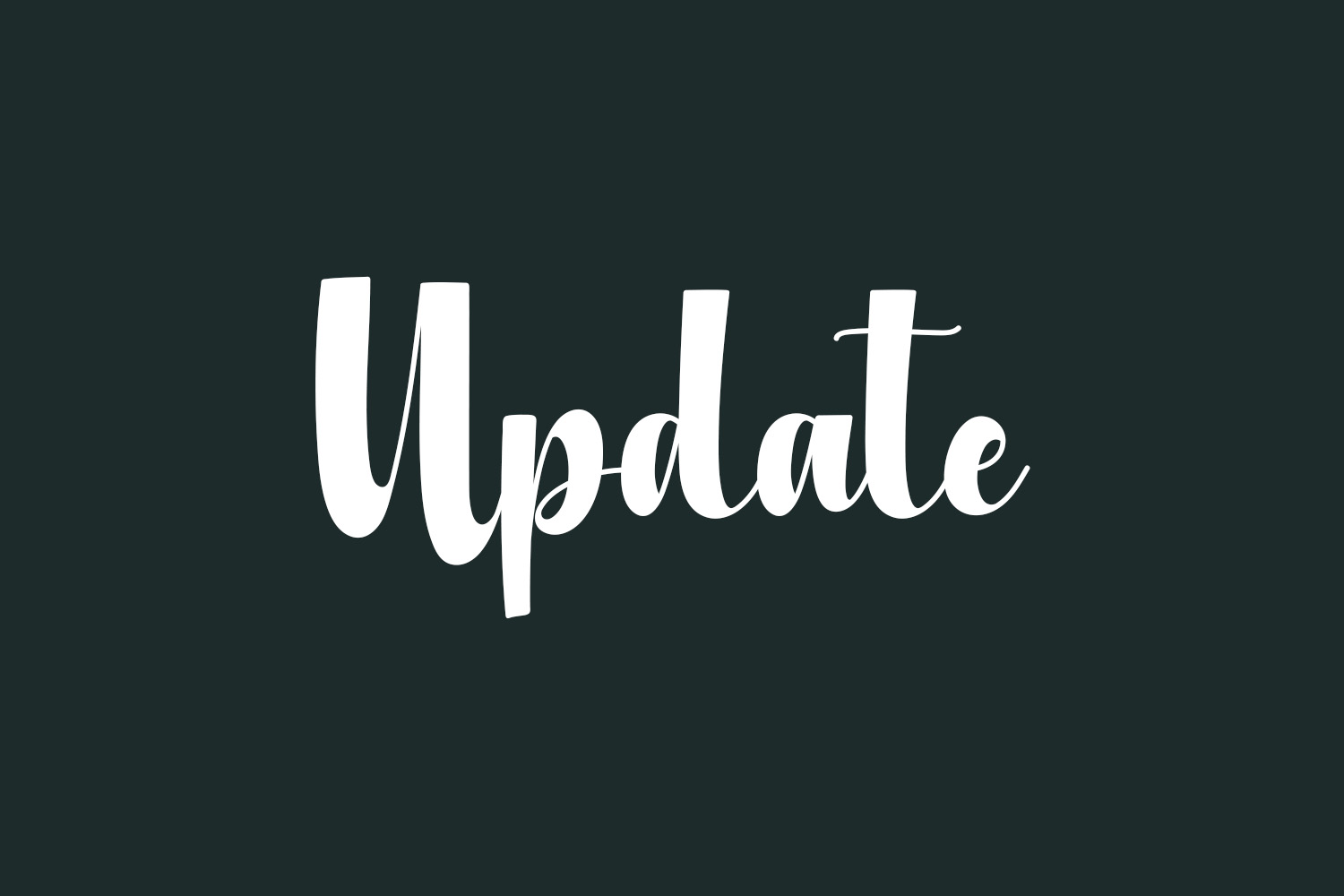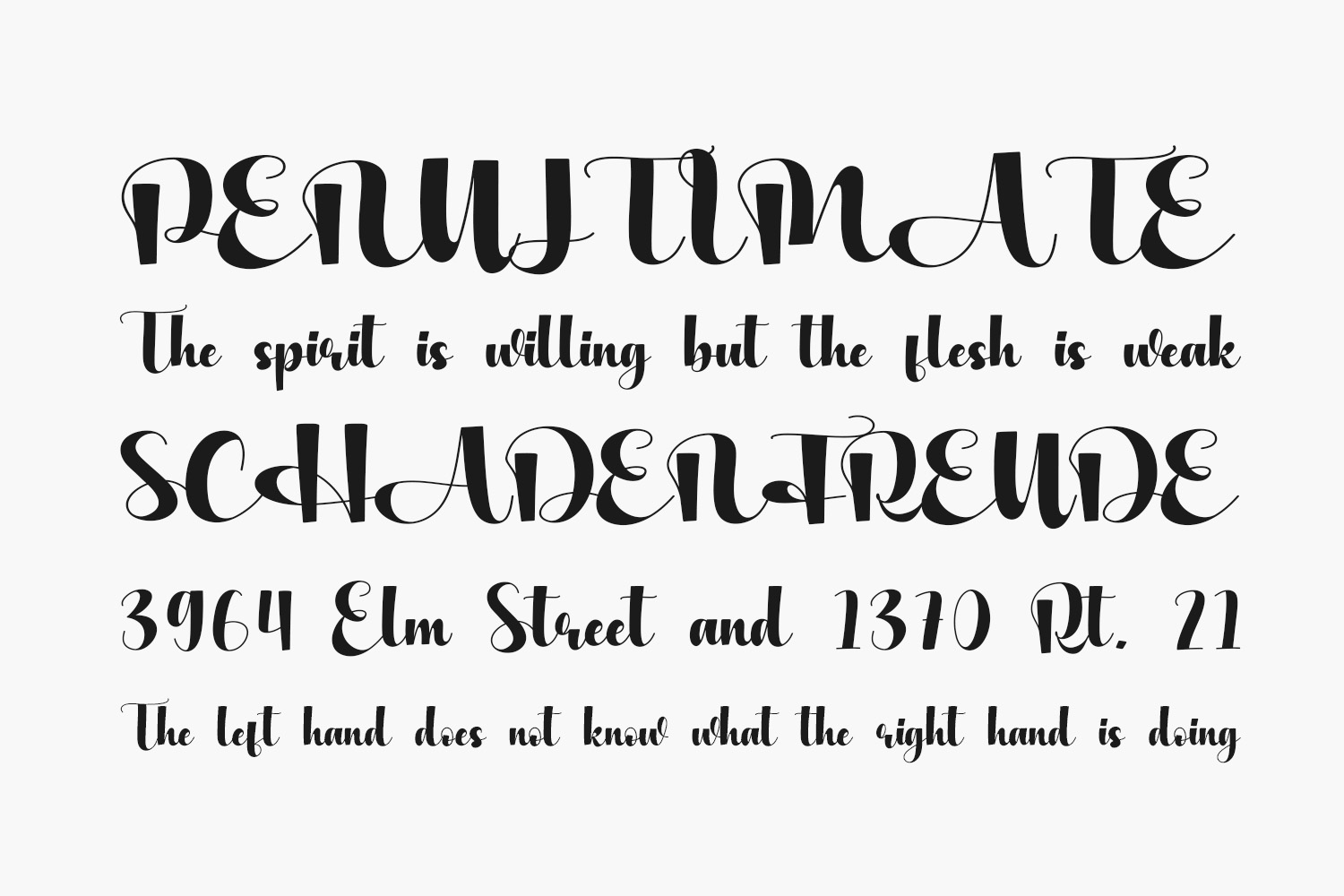
Introducing Update Free Font, an exquisite handwritten font crafted to be your absolute favorite. Balancing timeless calligraphic influences with a modern and fresh feel, this font captivates. Fall in love with Update and elevate your projects to new heights. Update Free Font is free for personal use only. Please purchase the full version for commercial use.
Designed by Scratchones